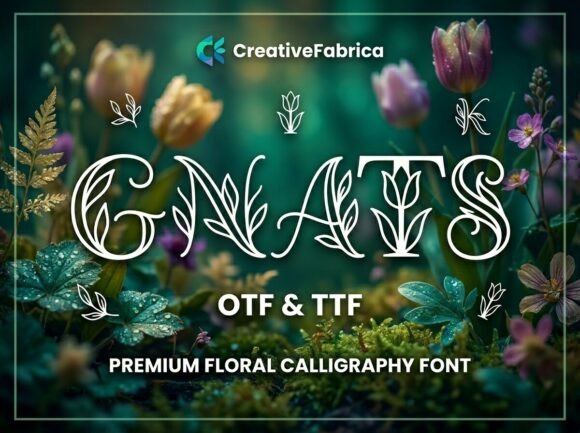
Breathe Life into Your Designs with Gnats Font
Are you looking for a unique and captivating display typeface to elevate your designs? Look no further than Gnats Font, an enchanting and whimsical font that embodies a “wild-and-woven” soul. This stunning font is perfect for designers and crafters seeking to add a touch of elegance and playfulness to their projects.
What is Gnats Font?
Gnats Font is a beautifully crafted display typeface that seamlessly blends classical Victorian illustration with modern organic branding. Its elegant, monolinear letterforms are uniquely characterized by rhythmic, hand-drawn botanical flourishes, including delicate leaves and blooming tulips integrated directly into the stems. This distinctive feature set sets Gnats apart from other fonts, making it an excellent choice for designers seeking to create eye-catching and memorable designs.
Key Features of Gnats Font
- Elegant and Whimsical Design: Gnats Font boasts a balanced structural weight and a whimsical personality, making it perfect for a wide range of design applications.
- Botanical Flourishes: The font’s hand-drawn botanical flourishes, including leaves and tulips, add a touch of organic charm and sophistication to any design.
- Monolinear Letterforms: The font’s monolinear letterforms provide a sense of elegance and refinement, while also ensuring excellent readability.
- Versatility: Gnats Font is suitable for a variety of design projects, from independent floral boutique identities to artisanal herbal tea packaging, garden-themed wedding stationery, and high-impact social media headers.
Gnats Font is an excellent choice for designers and crafters seeking to create unique and captivating designs that stand out from the crowd. Whether you’re working on a branding project, packaging design, or social media graphics, Gnats Font is sure to breathe life into your designs and leave a lasting impression on your audience.
Here are a few ideas to get you started with Gnats Font:
- Independent Floral Boutique Identities: Use Gnats Font to create a beautiful and eye-catching logo for your floral boutique, complete with delicate botanical flourishes and elegant letterforms.
- Artisanal Herbal Tea Packaging: Add a touch of whimsy and charm to your herbal tea packaging with Gnats Font, featuring hand-drawn illustrations of herbs and botanicals.
- Garden-Themed Wedding Stationery: Create stunning wedding stationery with Gnats Font, complete with beautiful floral patterns and elegant typography.
- Social Media Headers: Use Gnats Font to create high-impact social media headers that showcase your brand’s personality and style.
In conclusion, Gnats Font is a unique and captivating display typeface that is sure to breathe life into your designs. With its elegant and whimsical design, botanical flourishes, and versatility, Gnats Font is the perfect choice for designers and crafters seeking to create eye-catching and memorable designs. So why wait? Download Gnats Font today and start creating stunning designs that showcase your brand’s personality and style!